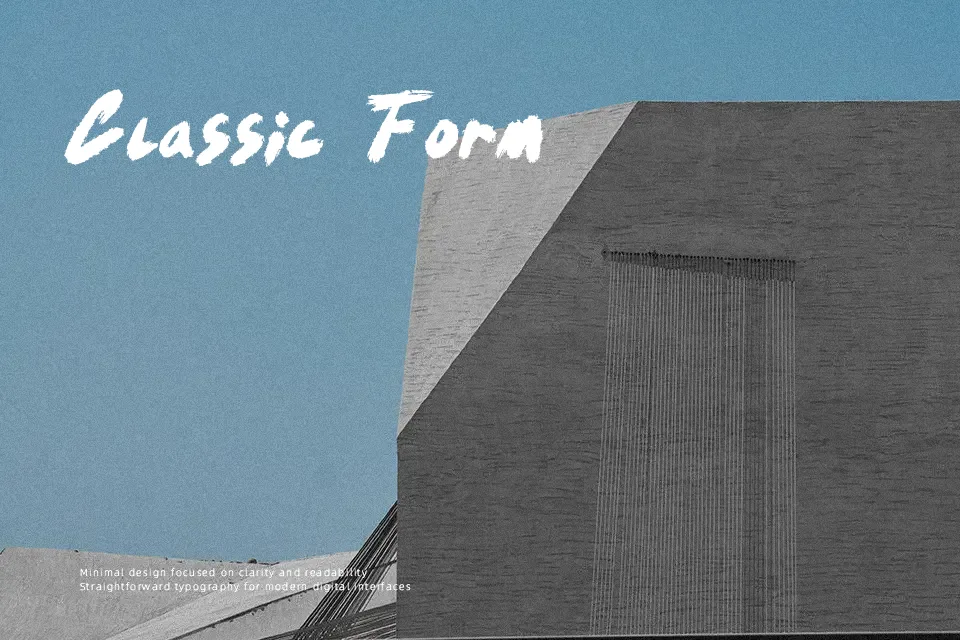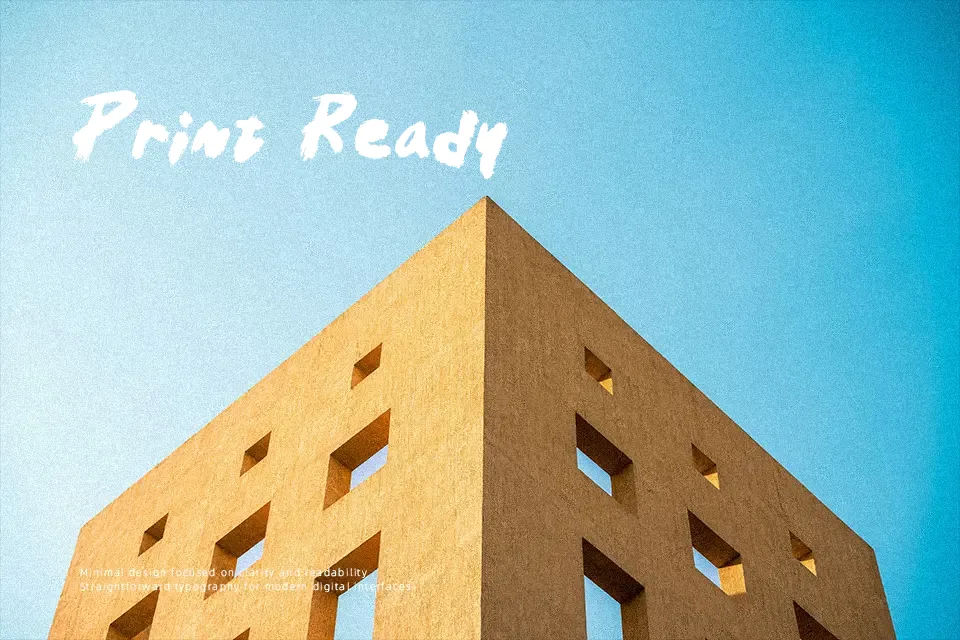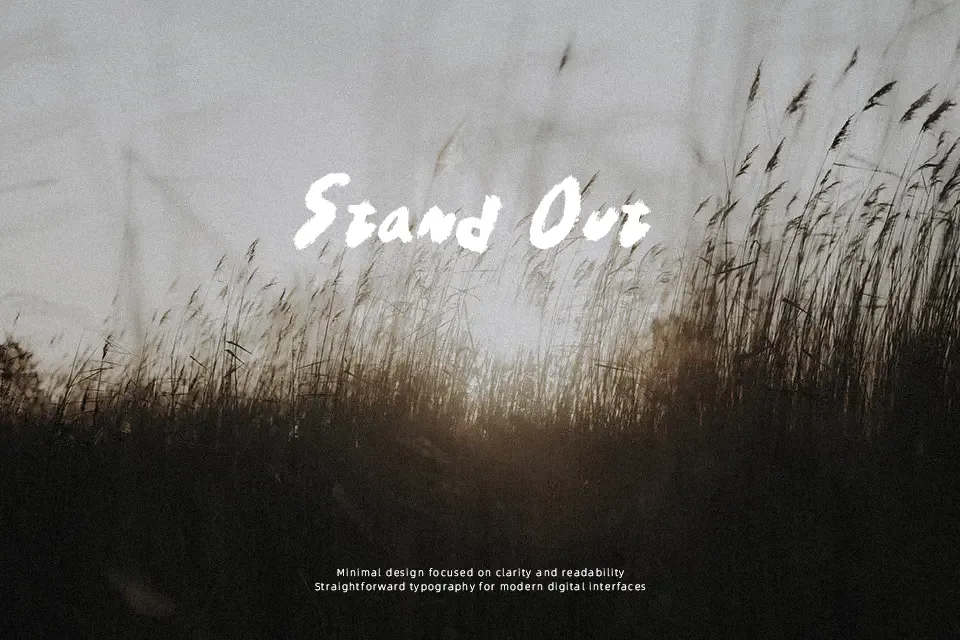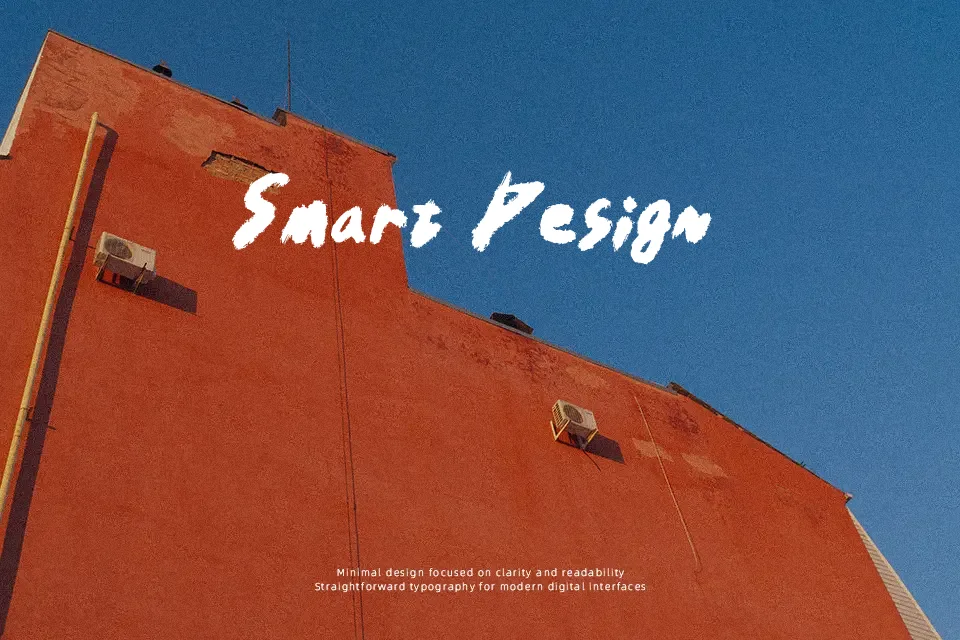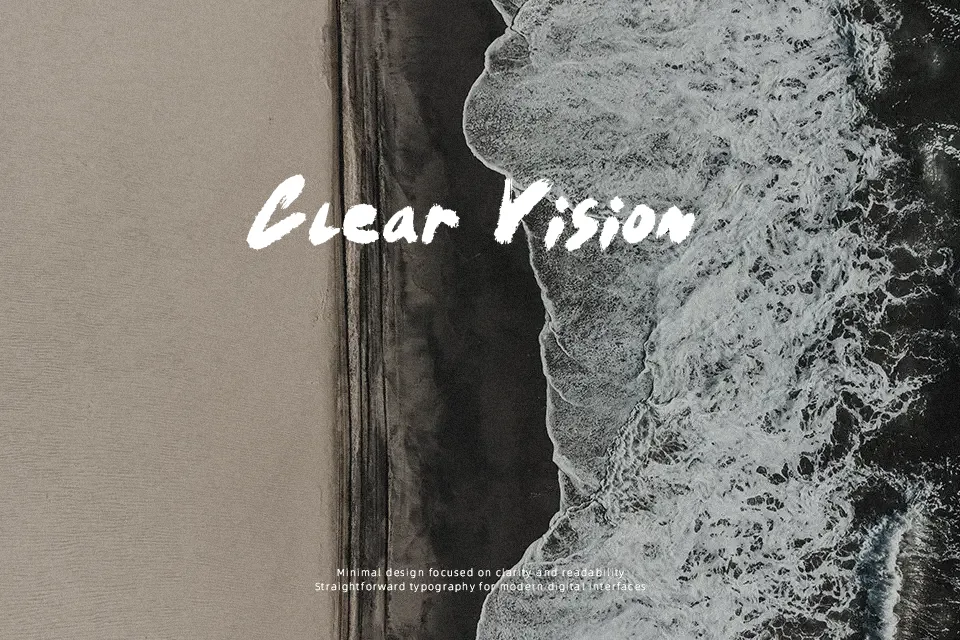
Berscare Font
There’s a scratchy unease running through Berscare’s letterforms — brush strokes that feel deliberate yet slightly unstable, which is exactly what makes it work for dark-themed design. Uppercase and lowercase characters carry embedded swirl ligatures, giving the typeface a flowing quality that sits somewhere between elegant calligraphy and haunted signage. It suits horror event flyers, spooky seasonal campaigns, or gothic branding headers where the visual tone needs to unsettle before it informs. That said, the irregular stroke weight and decorative baseline make it a poor choice for anything requiring extended reading — body copy is completely off the table. Think of it as a display-only tool: powerful in a headline, lost in a paragraph.
– Halloween event posters and seasonal promotion headers
– Horror or dark-themed game/film title treatments
– Gothic or occult-style merchandise labels
– Spooky social media graphic headers
– Body text or any multi-line reading context
– Corporate or professional brand identity materials
– Small-size use (readability breaks down quickly below 24px)
– Minimalist or clean UI design projects
Perfect for branding, film, and halloween, with a dark and brush style.